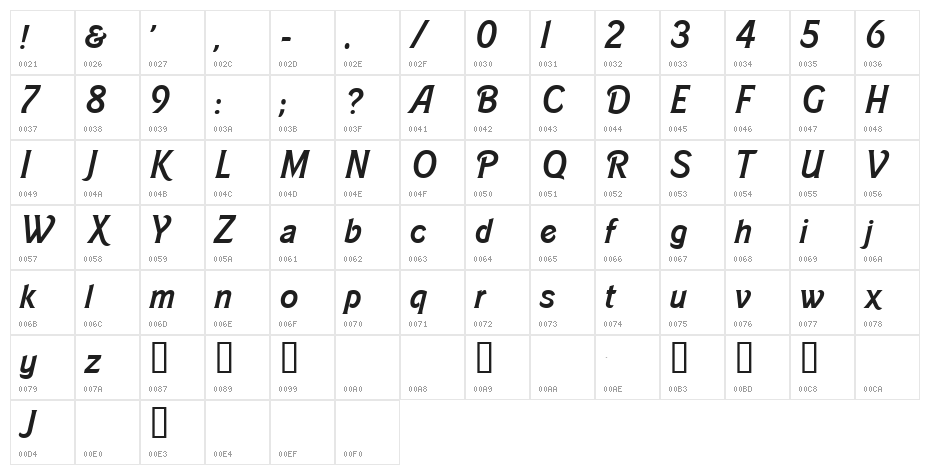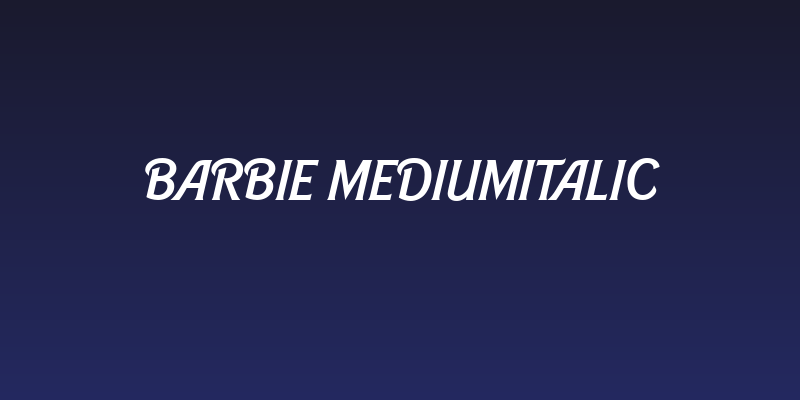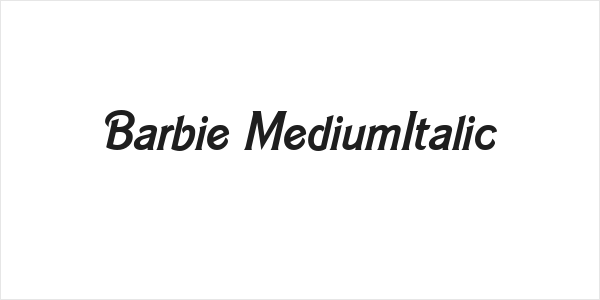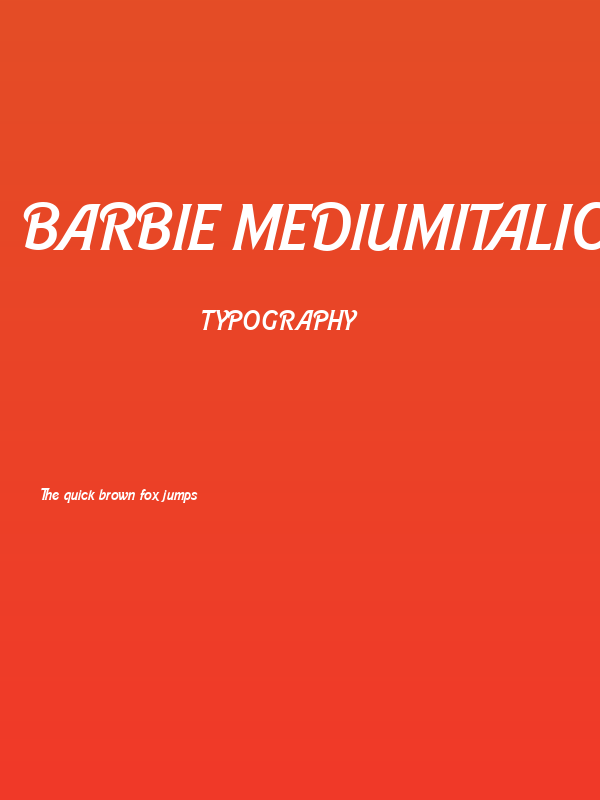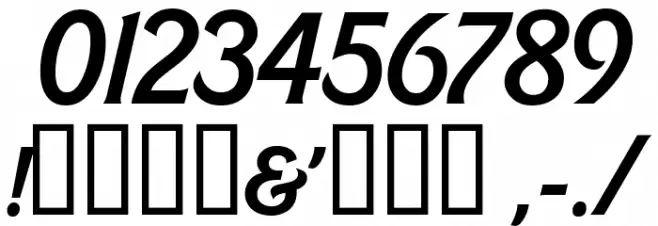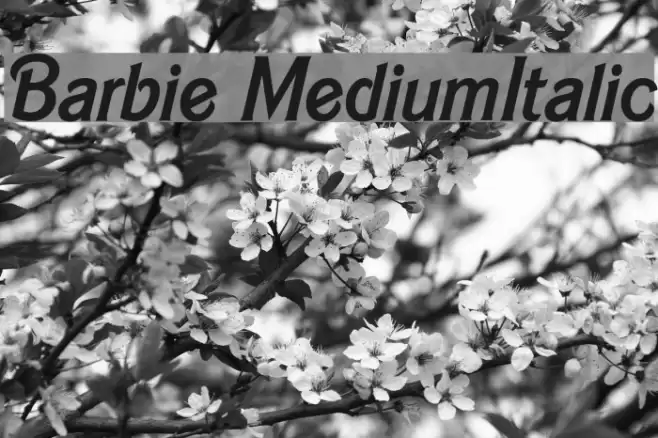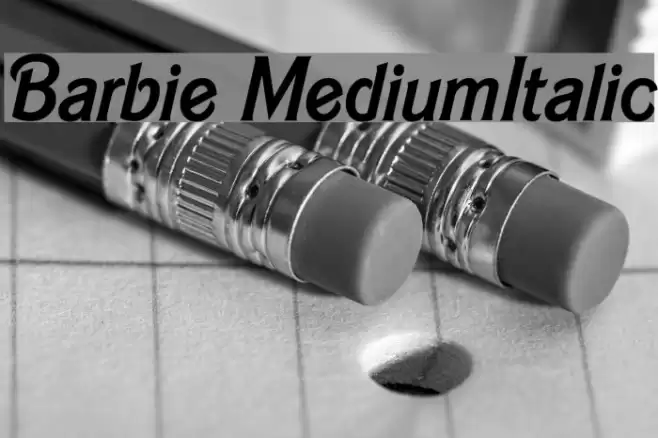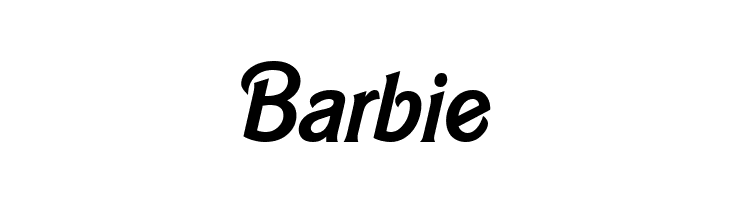
Barbie MediumItalic Font
Barbie MediumItalic Description
This font features a dynamic and stylish italic design, characterized by its smooth curves and elegant slant. The uppercase letters are bold and assertive, while the lowercase letters maintain a consistent flow, enhancing readability. The numerals are distinct and well-proportioned, complementing the overall aesthetic. Special characters are thoughtfully designed to match the font's sleek and modern appearance. The font's medium weight provides a balanced presence, making it versatile for various applications. Its italic nature adds a sense of motion and sophistication, suitable for both formal and creative projects.
| Use Case | Headlines, Logos, Branding |
| Proposed Projects | Ideal for branding, advertising, fashion magazines, and creative design projects. |